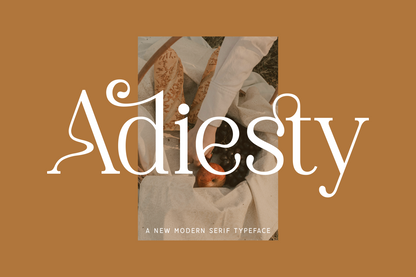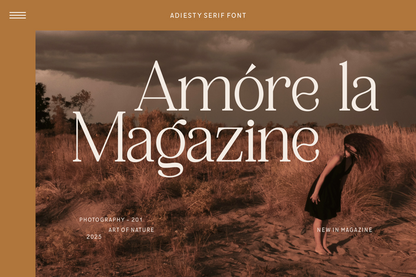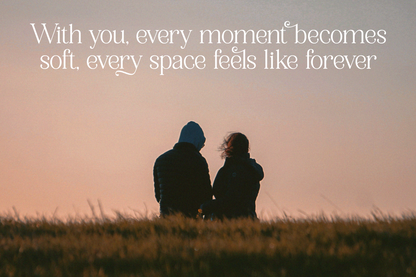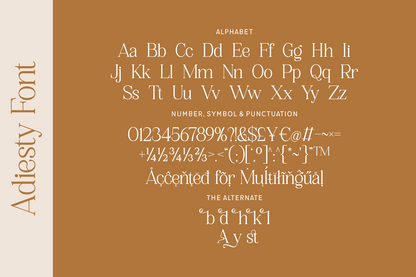
Adiesty is a modern serif typeface that radiates charm, sophistication, and editorial flair. With its graceful curves, high-contrast strokes, and whimsical swash alternates, Adiesty effortlessly blends classic elegance with a contemporary twist. Complete with multilingual support and stylish alternates, Adiesty is both versatile and captivating.